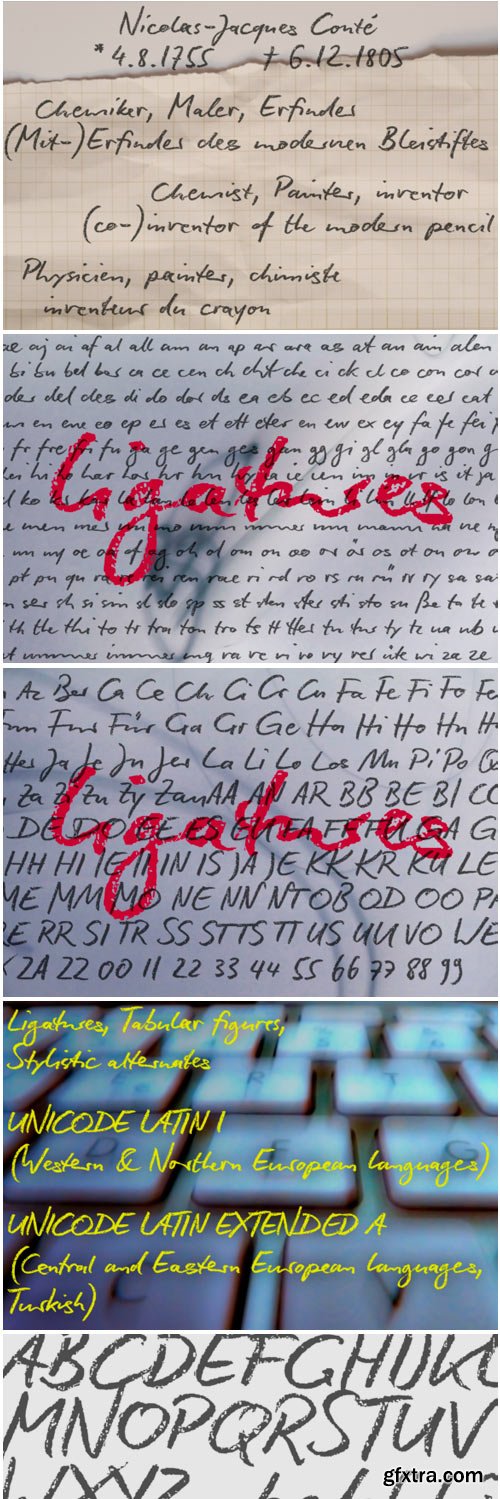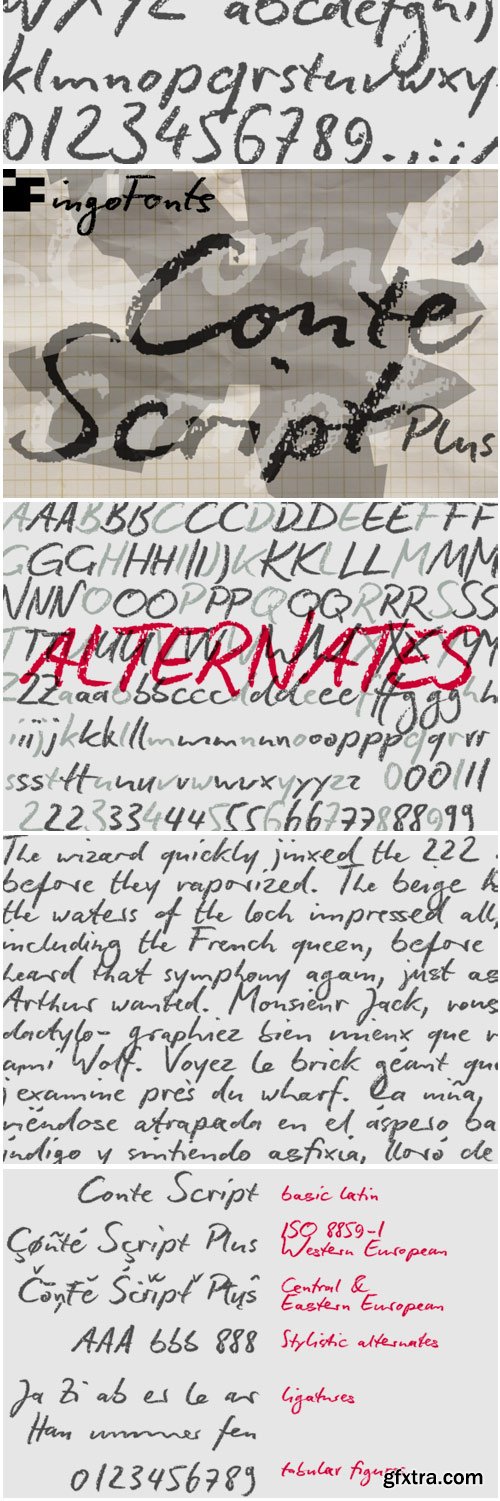
Conté Script Plus Font
Conté Script Plus is an incredibly authentic handwritten font with a lovely feel. Get inspired by its beautiful characters, and turn any design project into a stand out!